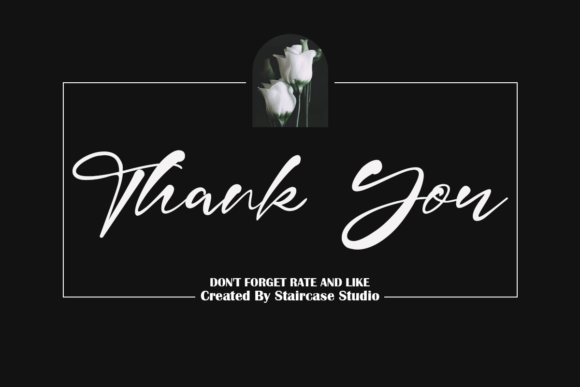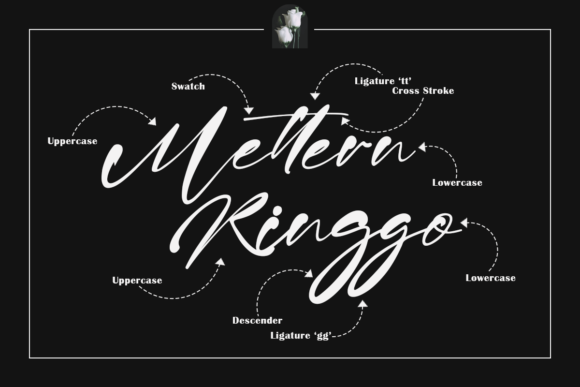
About Haggerty Font
Haggerty is a delicate and stylish script font. Add this romantic and lovely looking font to each of your love letters, wedding invitations or favorite design ideas, and you will be astounded by the outcome.